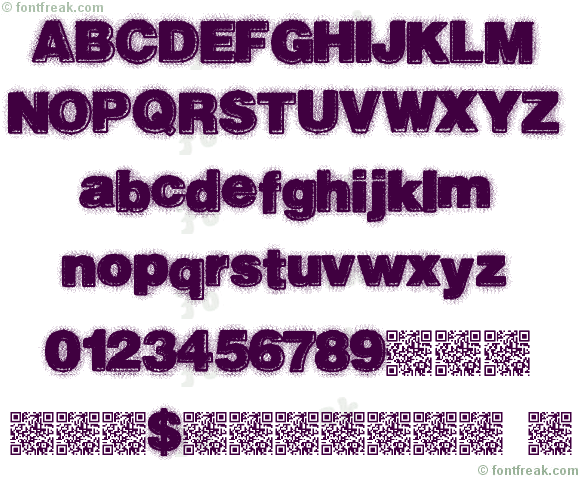
NextWave
NextWave, crafted by Xerographer Fonts, is a striking display font that captures attention with its unique visual appeal. This font features a bold, rounded style characterized by a medium stroke weight and subtle contrast, making it versatile for various design applications. The letterforms exhibit a playful, modern aesthetic, enhanced by an inviting spacing that promotes readability. Its decorative elements add a touch of creativity without overwhelming the viewer, ensuring that it stands out while remaining legible.
Ideal for a range of specific uses, the NextWave font shines in creative projects such as movie posters, where its boldness can evoke excitement and intrigue. It also works wonderfully for restaurant menus, providing a friendly and approachable vibe, perfect for casual dining experiences. Additionally, its lively character makes it an excellent choice for event flyers, particularly for parties or music festivals, where energy and fun are essential. Wedding invitations can also benefit from this font, as its distinct style adds a modern twist to traditional designs, appealing to couples looking to break the mold.
What truly sets NextWave apart is its ability to blend playfulness with professionalism, creating a font that embodies both creativity and functionality. Whether you're designing for print or digital media, the NextWave font free download provides an excellent tool for making a memorable impact in your designs.